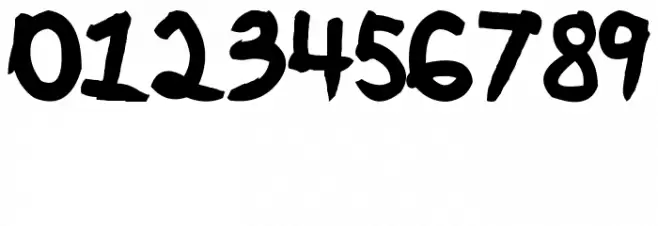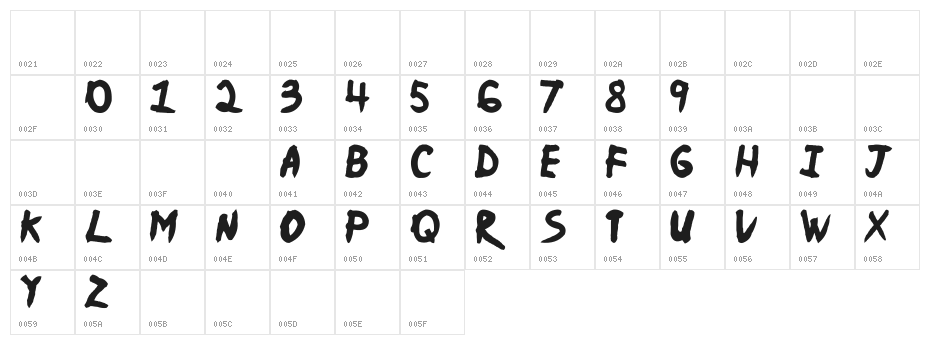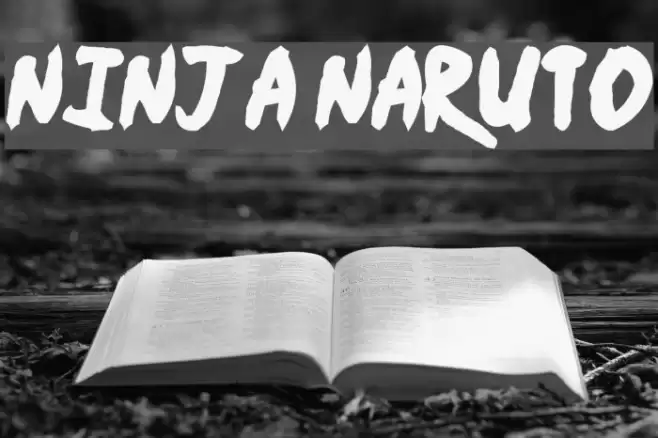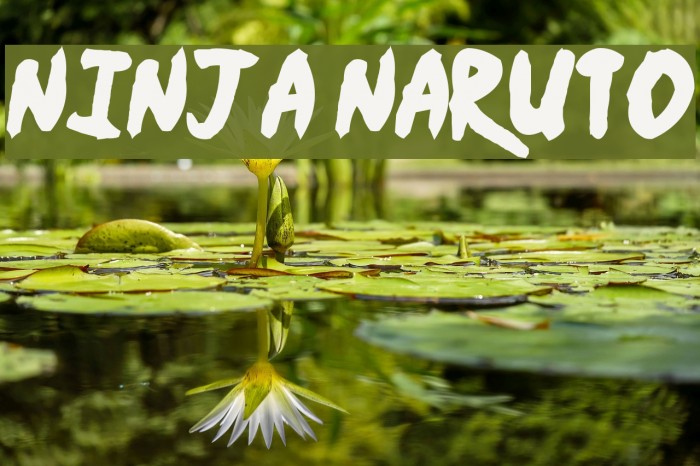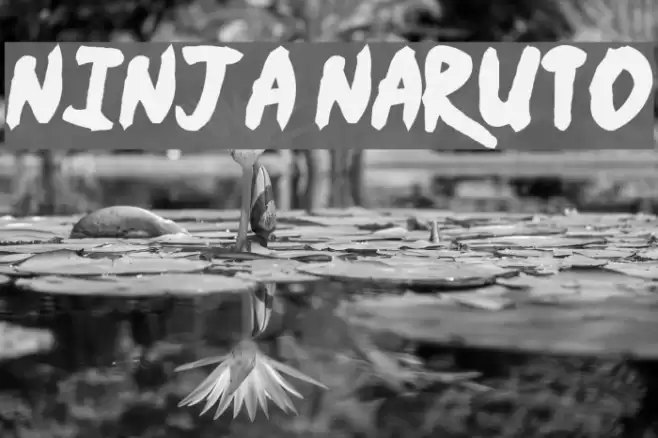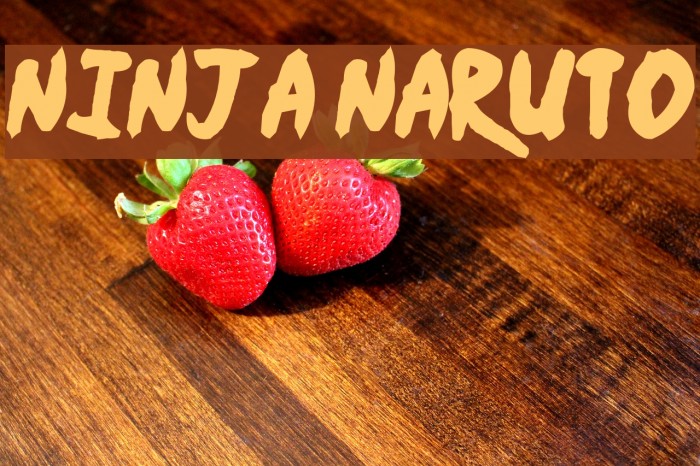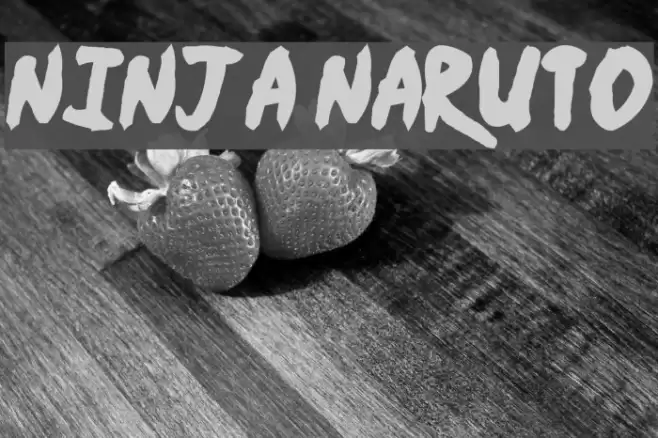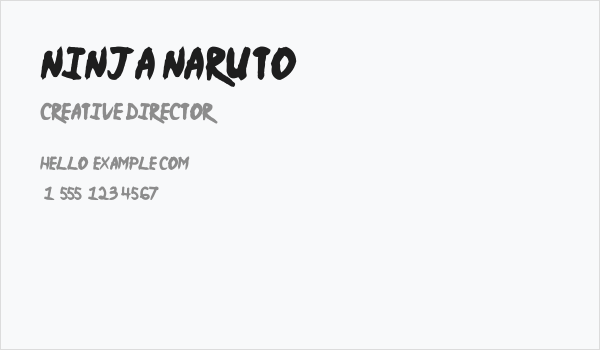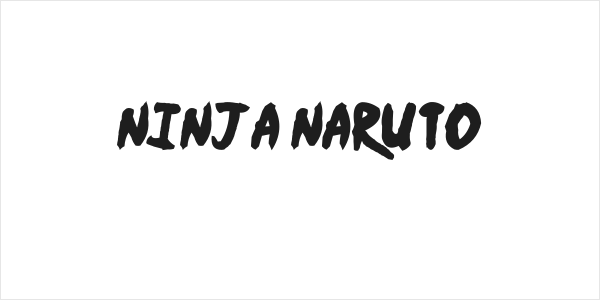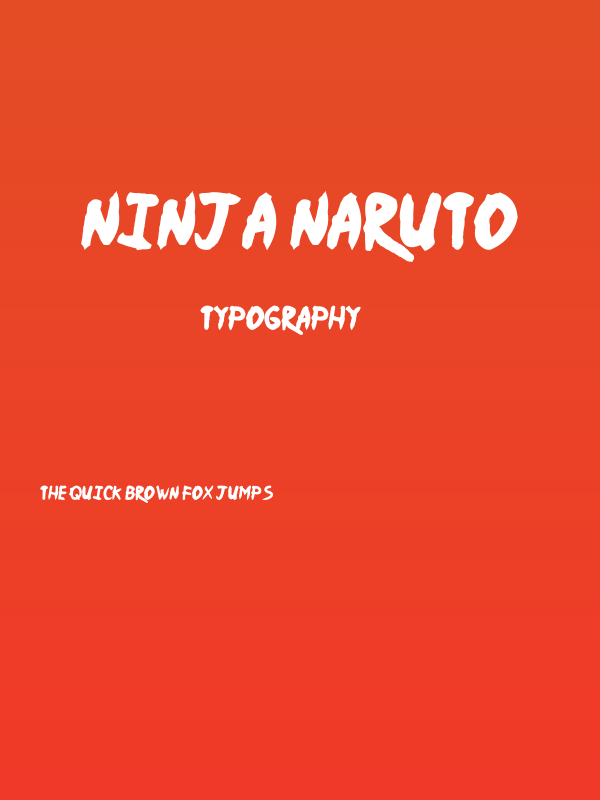
Ninja Naruto Font
Ninja Naruto Description
This font features a bold and dynamic style with a hand-drawn appearance, reminiscent of brush strokes. The characters are slightly irregular, giving them a lively and energetic feel. The uppercase and lowercase letters maintain a consistent style, with rounded edges and a slightly condensed form. The numbers follow the same aesthetic, ensuring uniformity across all characters. This font's unique style makes it suitable for projects that require a touch of creativity and flair.
| Width | Condensed |
| Proposed Projects | Ideal for comic book titles, video game graphics, posters, and branding that requires a bold and energetic look. |